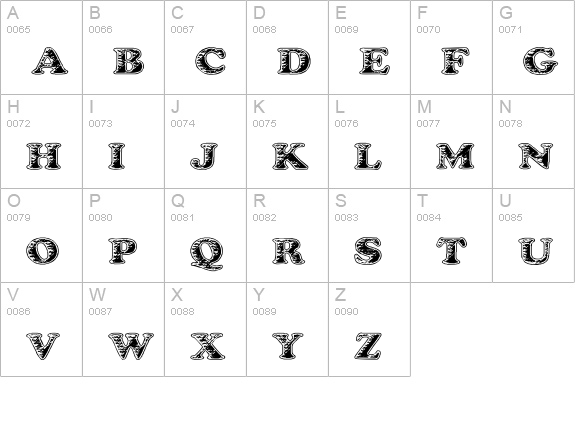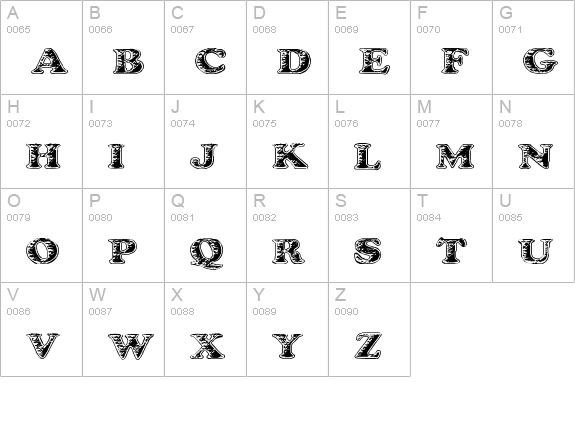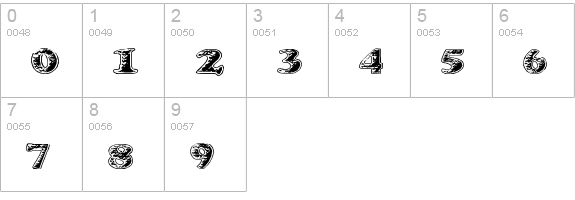
Battered Cooper Font Details
Battered Cooper font is a unique and versatile typeface that exudes a rustic and weathered charm. With its distressed appearance and vintage aesthetic, this font is perfect for adding a touch of nostalgia to your designs. The uneven strokes and worn-out look give Battered Cooper a sense of history and character, making it ideal for projects that require a touch of authenticity. What sets Battered Cooper font apart is its free availability for download at FontsMarket.com. This means you can easily access and use this font in your projects without any cost, making it a valuable resource for designers and creatives looking to add a touch of vintage flair to their work. Whether you're working on a branding project, poster design, or any other creative endeavor, Battered Cooper font is sure to make a lasting impression. Download it for free today and let its unique charm elevate your designs to the next level.